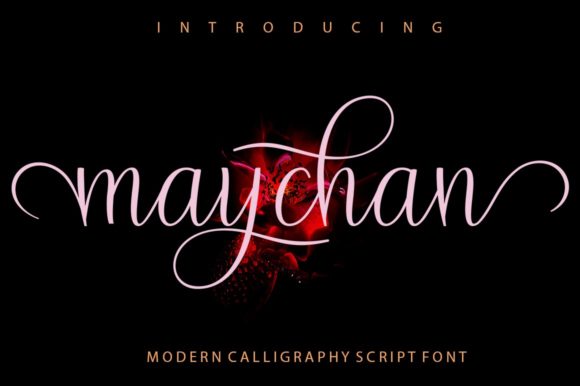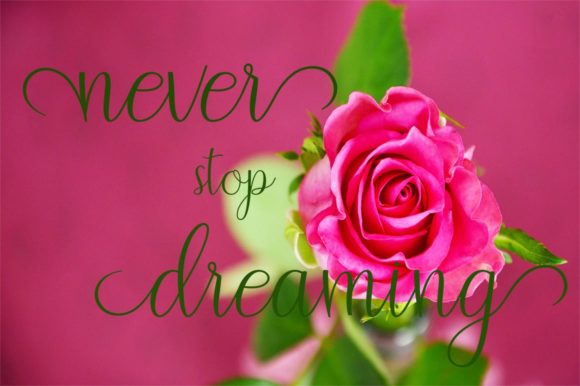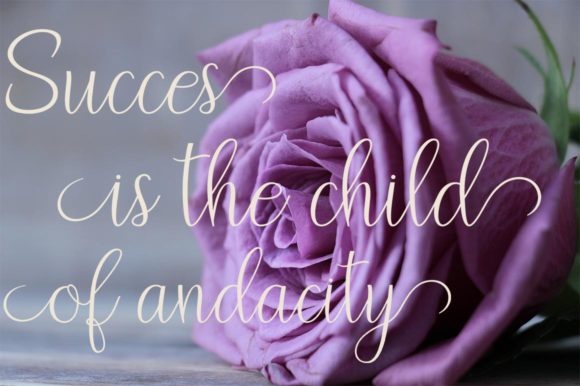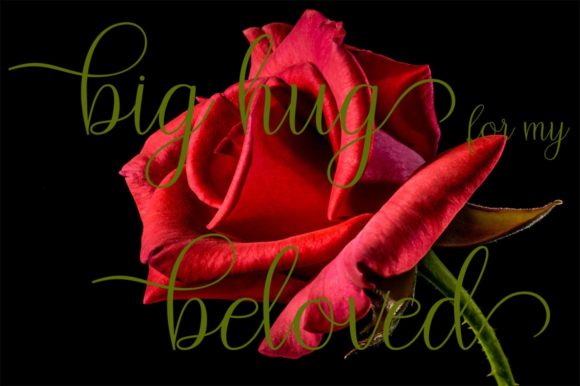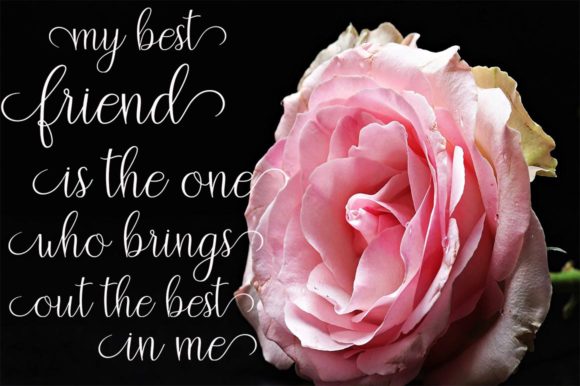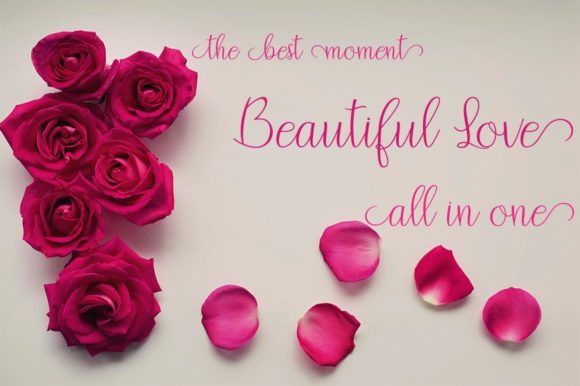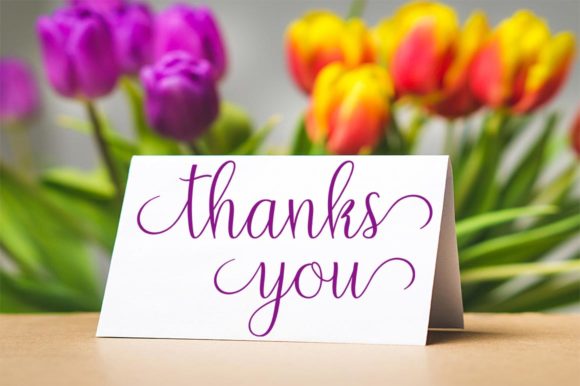
Maychan Font
About Maychan Font
The Maychan is a modern script font. It has a smooth baseline and a trendy and feminine style.
It’s perfect for T-shirts, thank you cards, quotes, greeting cards, logos, business cards and much more.